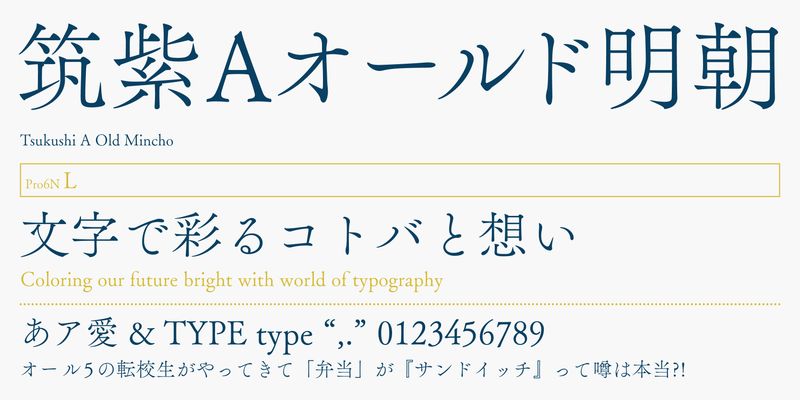
FOT-TsukuAOldMin Pr6N Font Free Download is a beautifully crafted serif typeface rooted in traditional Japanese Mincho style, making it ideal for editorial design, academic publications, and formal branding. Its delicate stroke contrast and refined curves bring an elegant, timeless feel to both Japanese and Latin text, making it a top choice for bilingual projects.